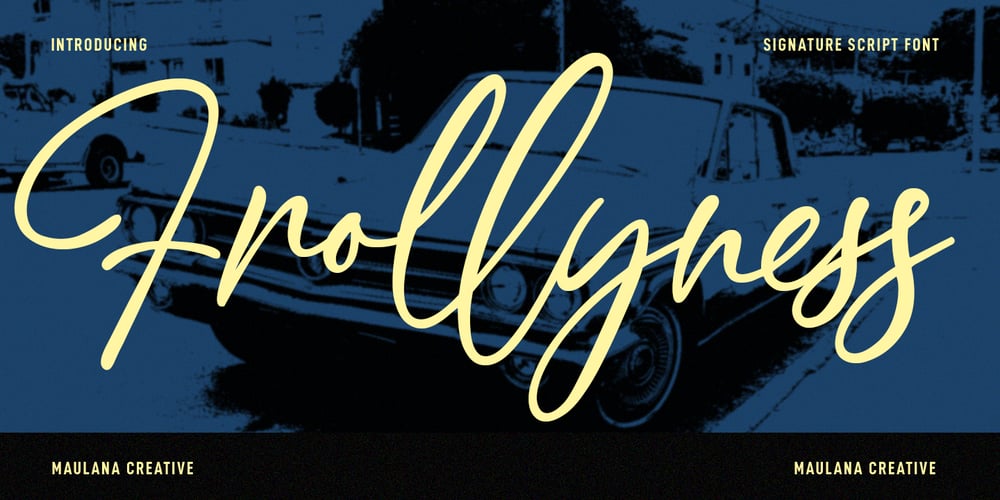
Frollyness Font Family was designed by Gilang Maulana and published by Maulana Creative. Frollyness contains 1 styles and family package options. Frollyness is a casual signature script font. With a gel pen line stroke, slant and fun character with a bit of ligature and bit lower alternate. To give you an extra creative work. Frollyness font support multilingual more than 100+ language. This font is good for logo design, Social media, Movie Titles, Books Titles, a short text even a long text letter and good for your secondary text font with sans or serif. Make a stunning work with Frollyness font. Cheers, Maulana Creative